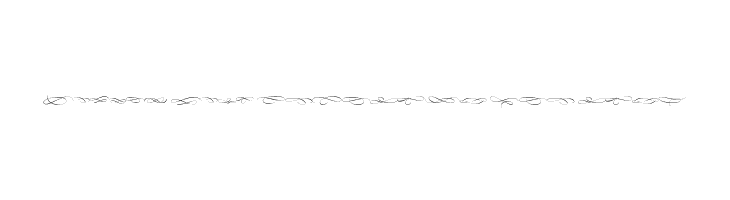
An elegant, decorative script font with thin, flowing lines and intricate swirls.
An ornate and decorative font with intricate swirls and flourishes.
An elegant, cursive font with intricate swashes and flourishes.
An elegant script font with intricate flourishes and a refined, flowing style.
An elegant script font with flowing cursive style and intricate swashes.
An elegant and sophisticated script font with flowing, cursive letters.
An elegant and flowing script font with ornate, cursive characters.
An elegant script font with flowing, interconnected letters and elaborate swashes.
An elegant script font with intricate flourishes and a sophisticated style.
An elegant, flowing script font with intricate, decorative letterforms.